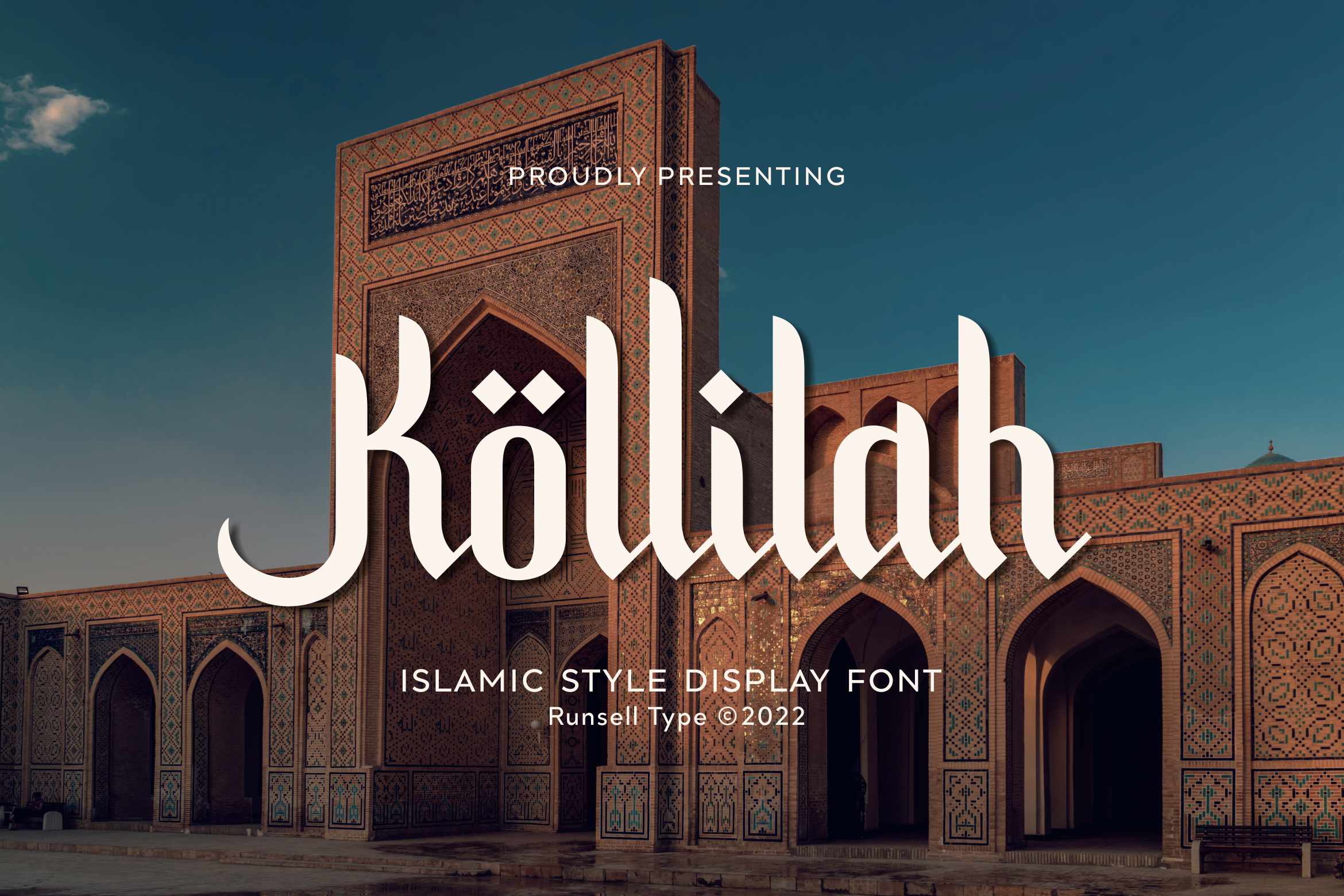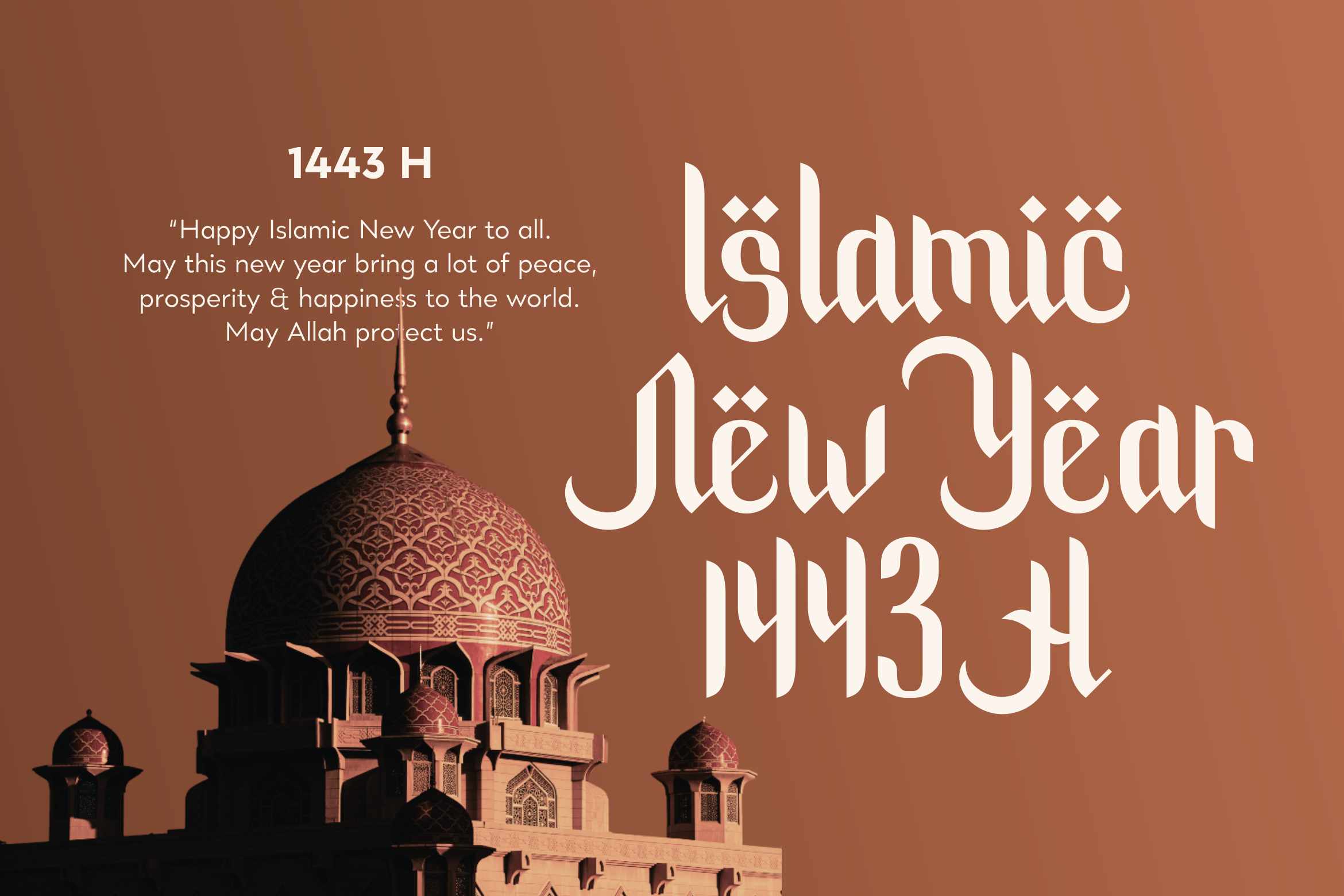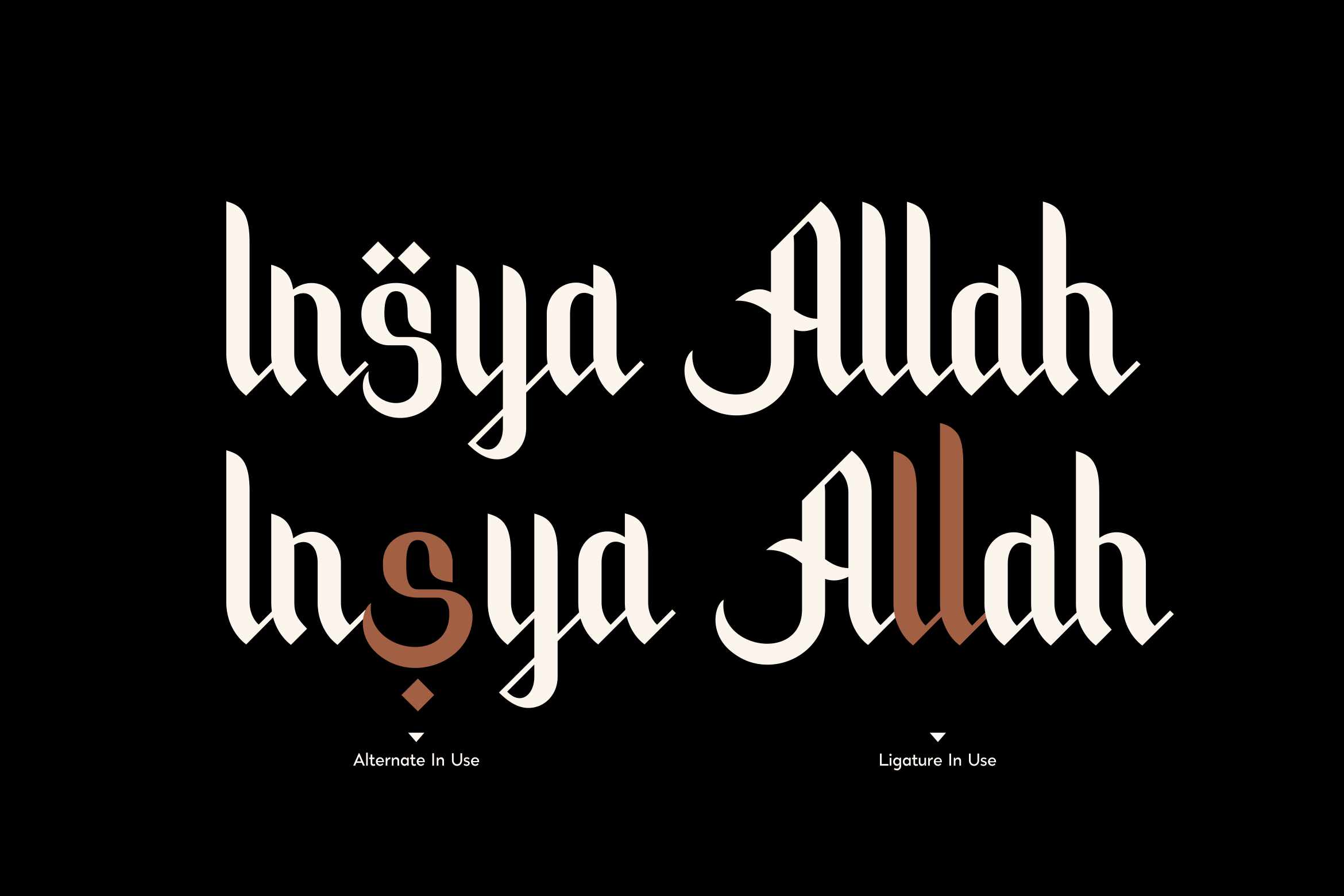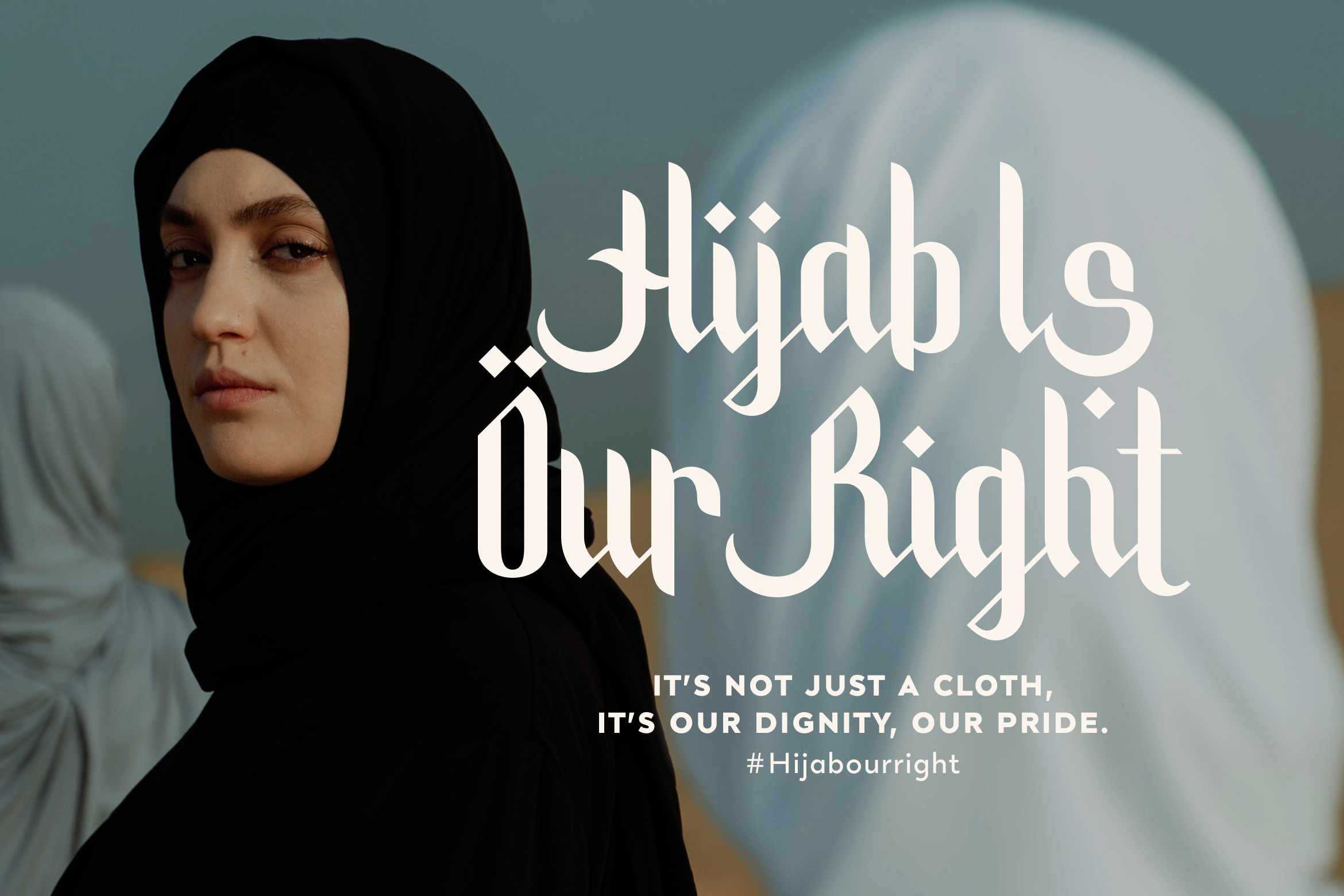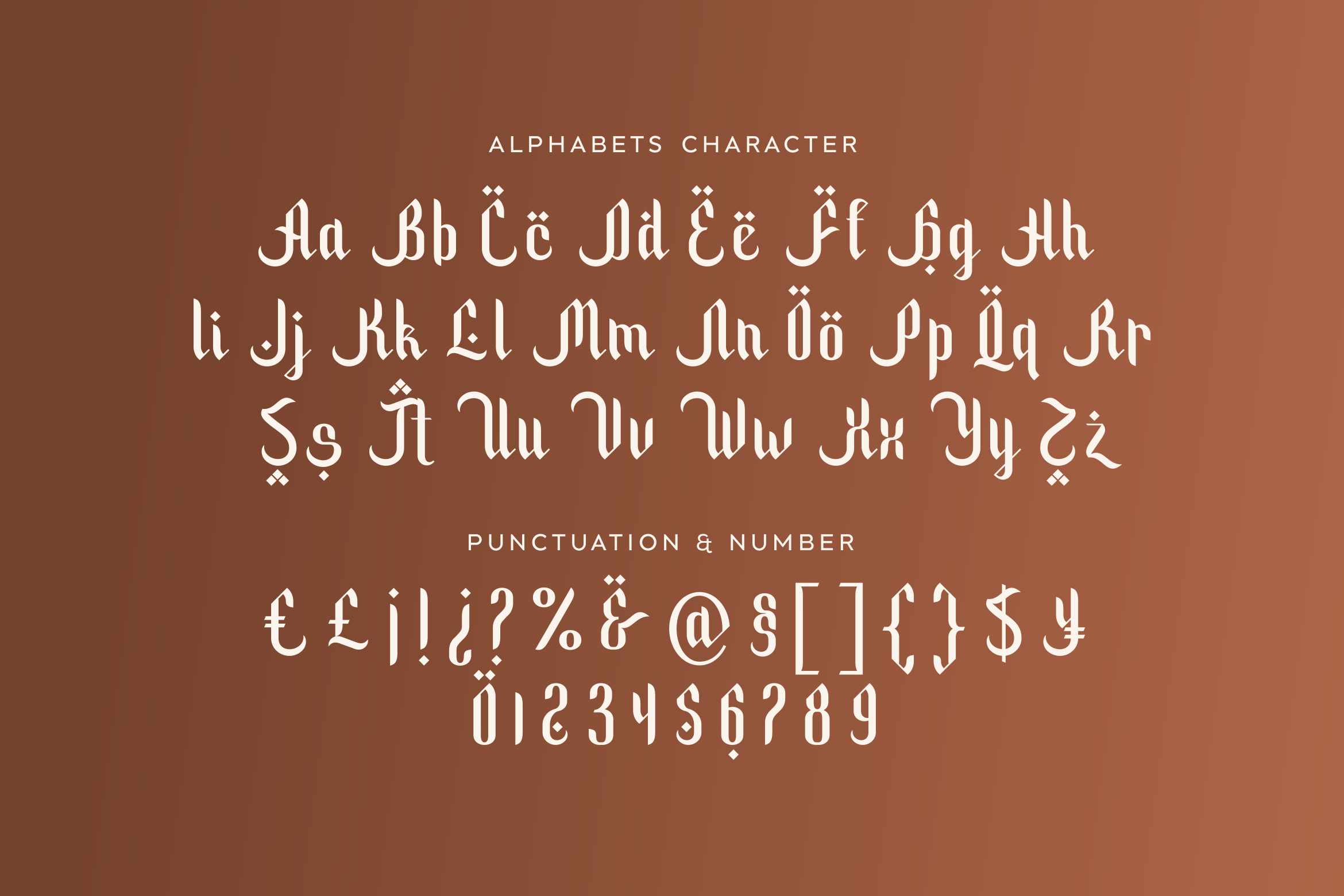
Kollilah is an Islamic-style display font that blends classic elegance with modern typography. Characterized by tall, graceful letterforms and ornamental accents, Kollilah conveys a sense of sophistication and heritage. The sweeping curves and diamond diacritics of this font evoke the visual rhythm of traditional Arabic calligraphy, making it ideal for religious event posters, Ramadan campaigns, cultural branding, and merchandise.
Each glyph in Kollilah is crafted to reflect harmony and reverence, supported by ligatures and stylistic alternates that allow for expressive compositions. Whether used for branding, quotes, or ceremonial sayings, this font embodies spiritual depth and clarity in contemporary design. Kollilah is more than just a typeface, it is a tribute to the unity of design.